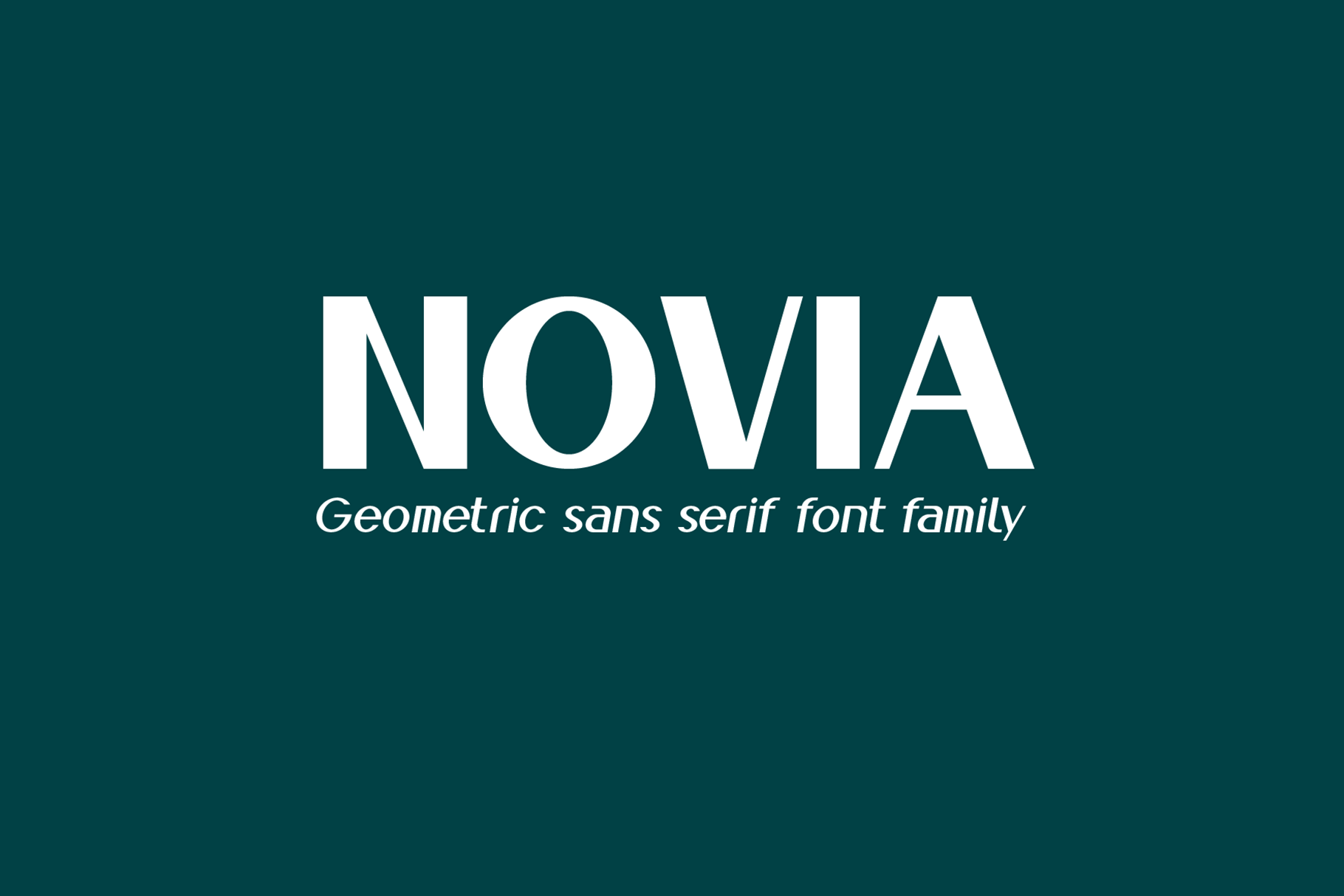
Novia font family
Novia is a modern sans serif geometric font, includes upper and lower case characters, Latin, Cyrillic and other. Novia fonts will be useful in developing a brand, creating posters and other graphic products, and for word processing.